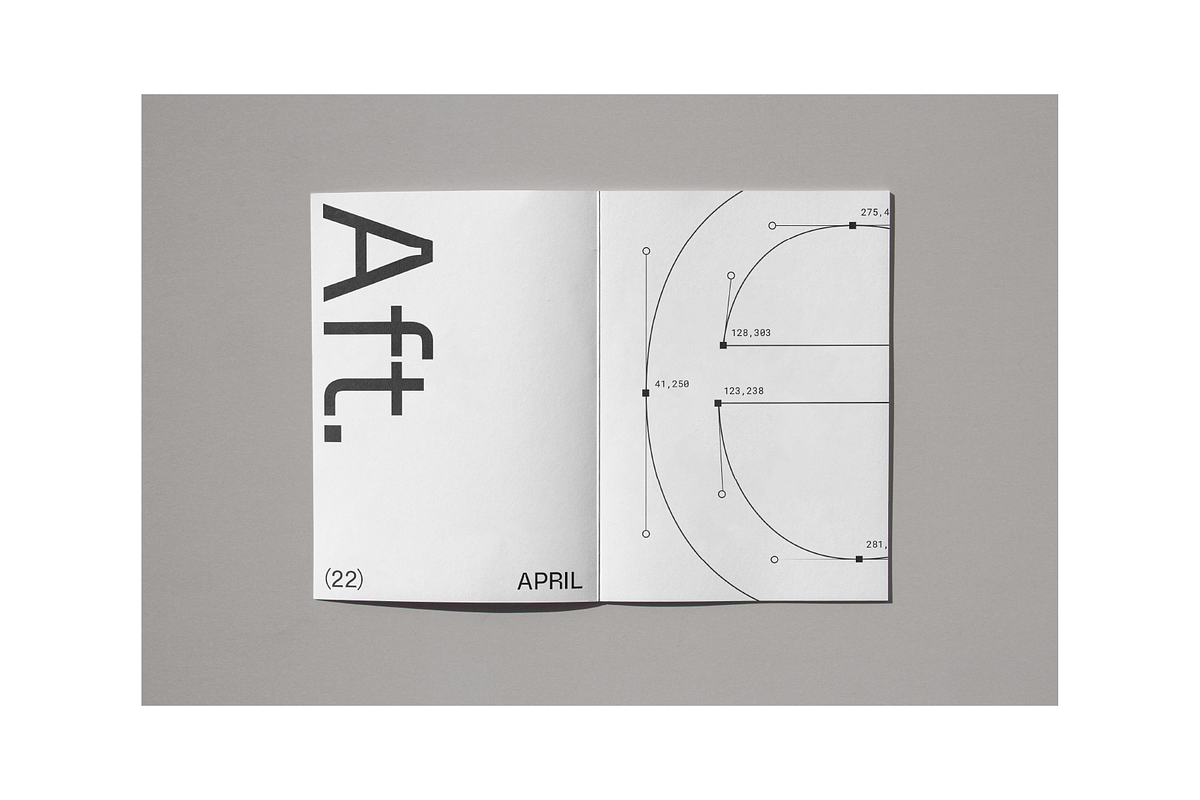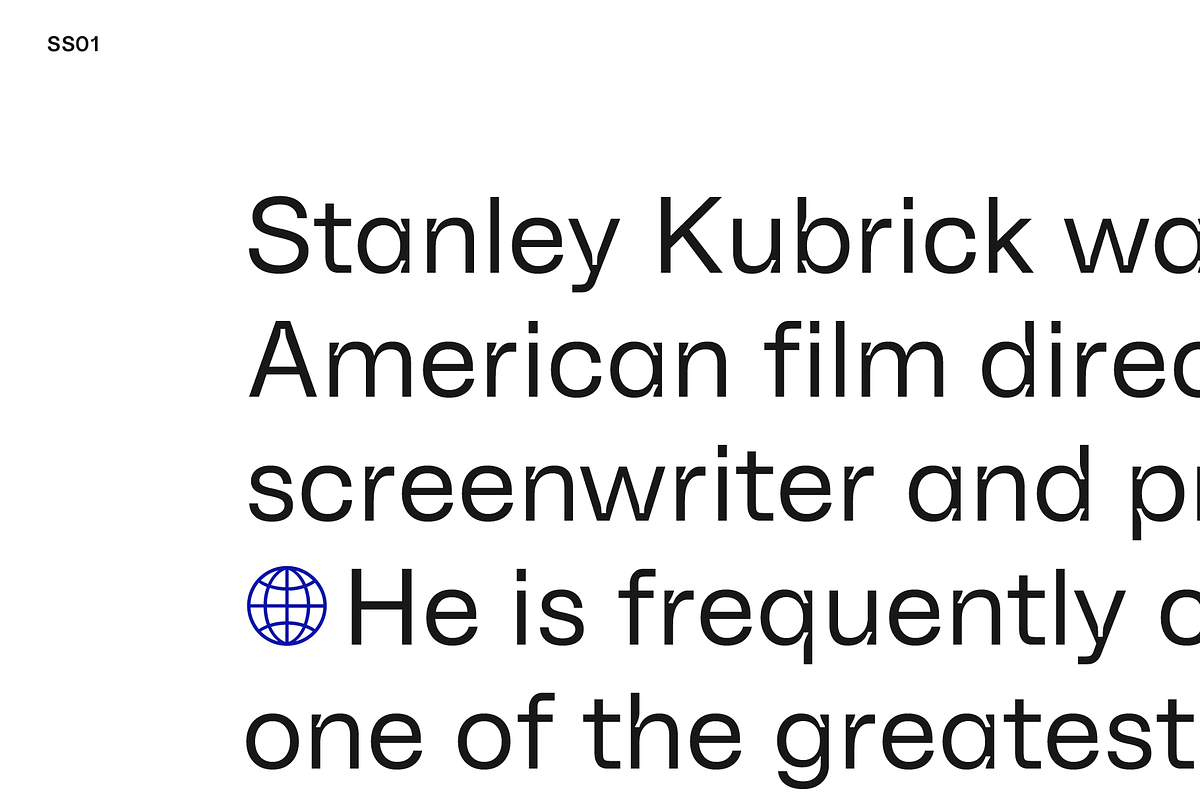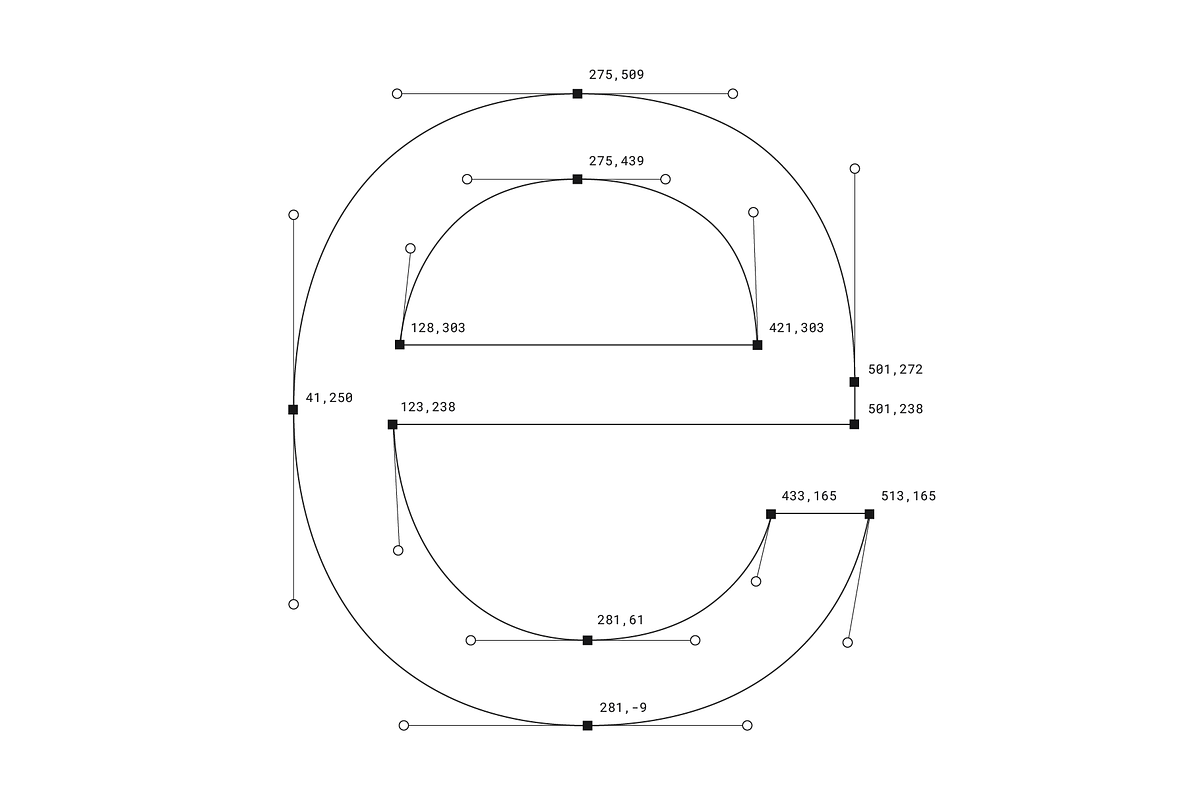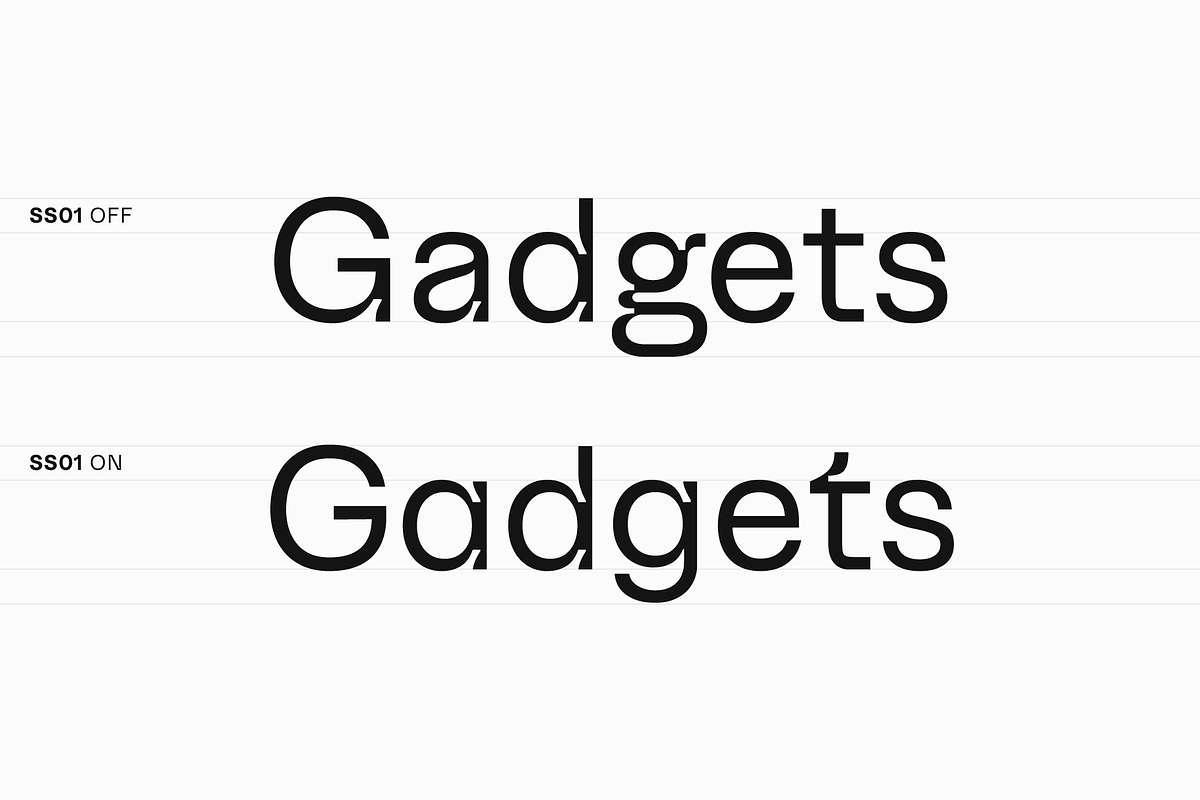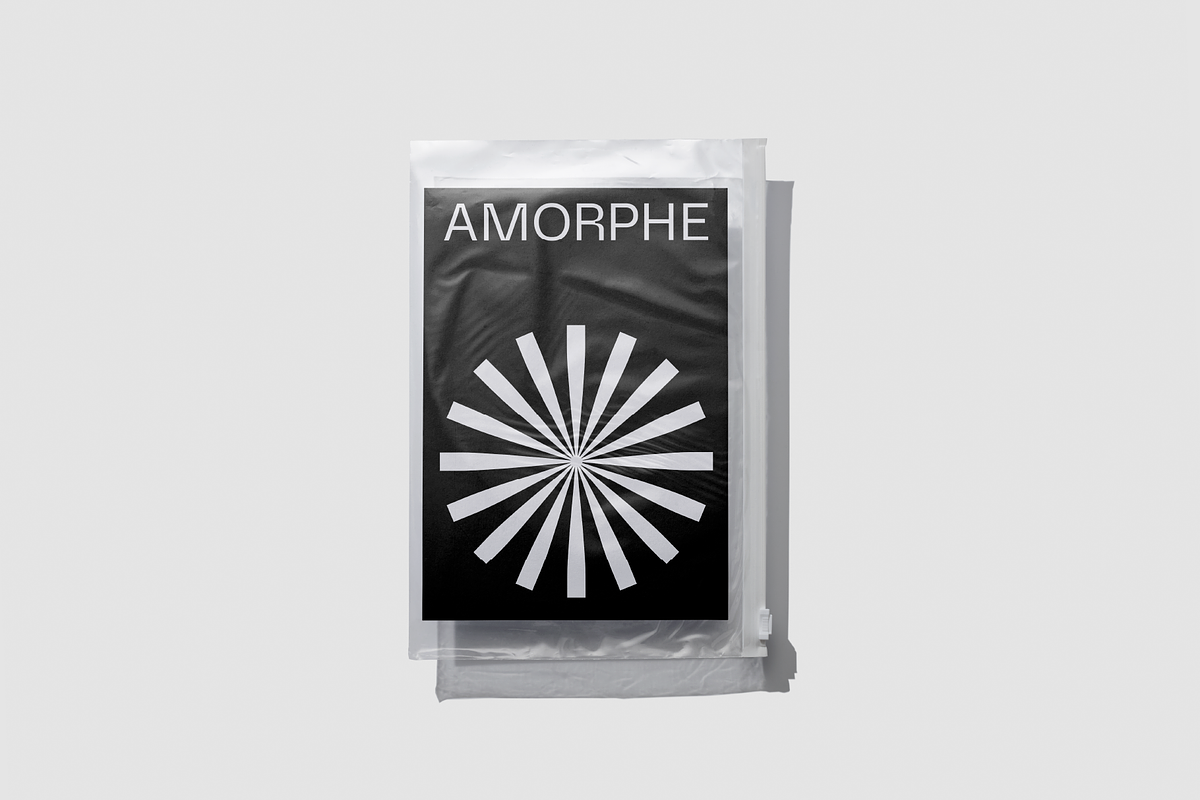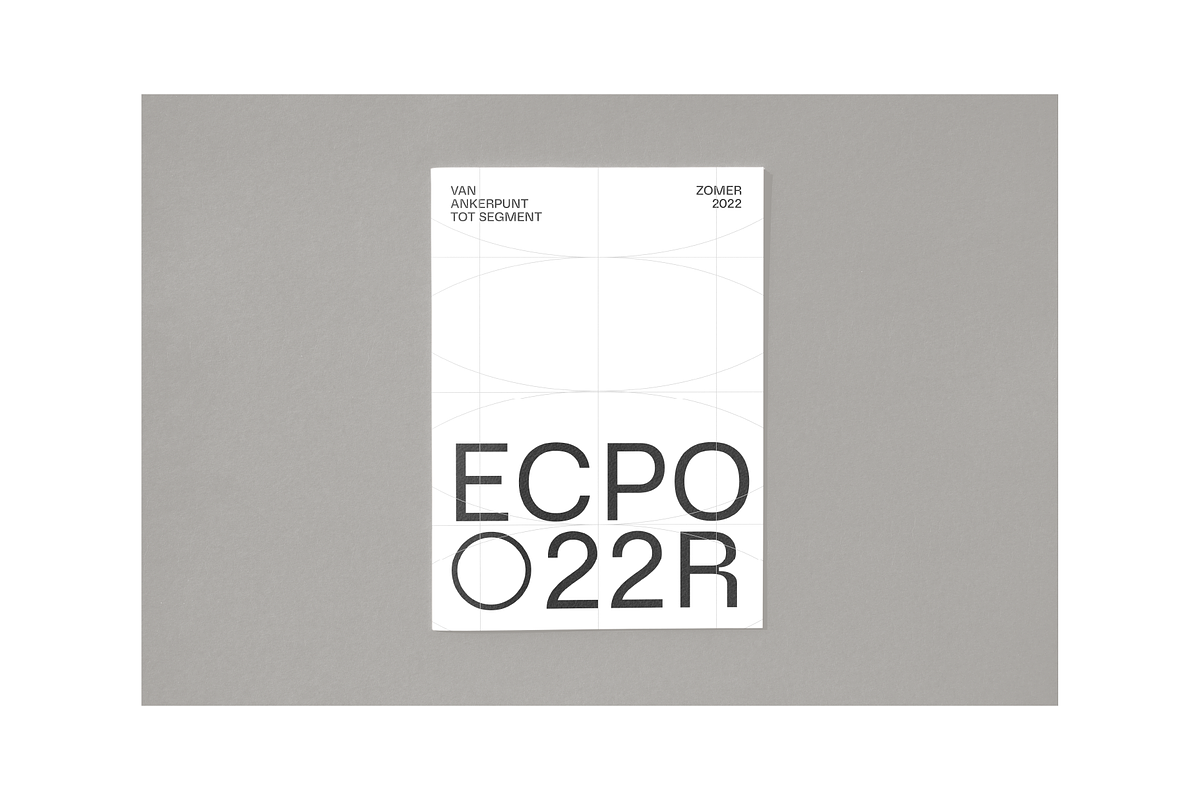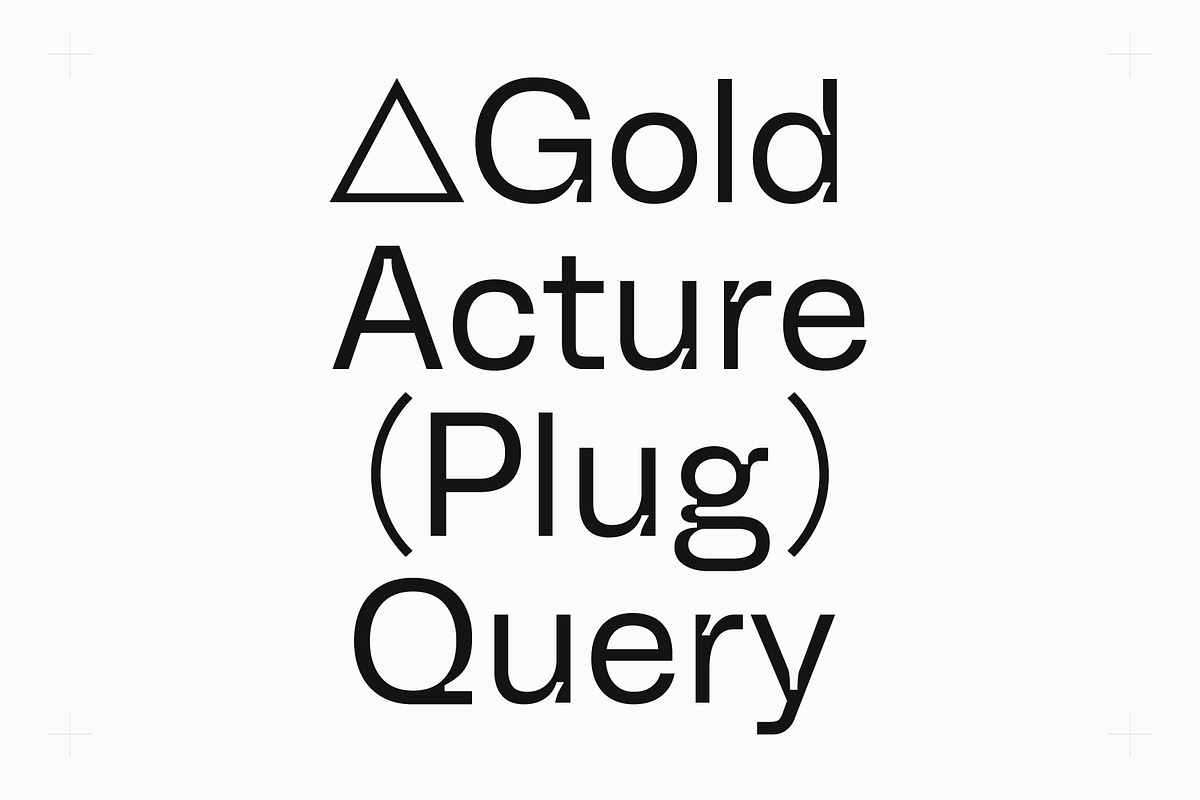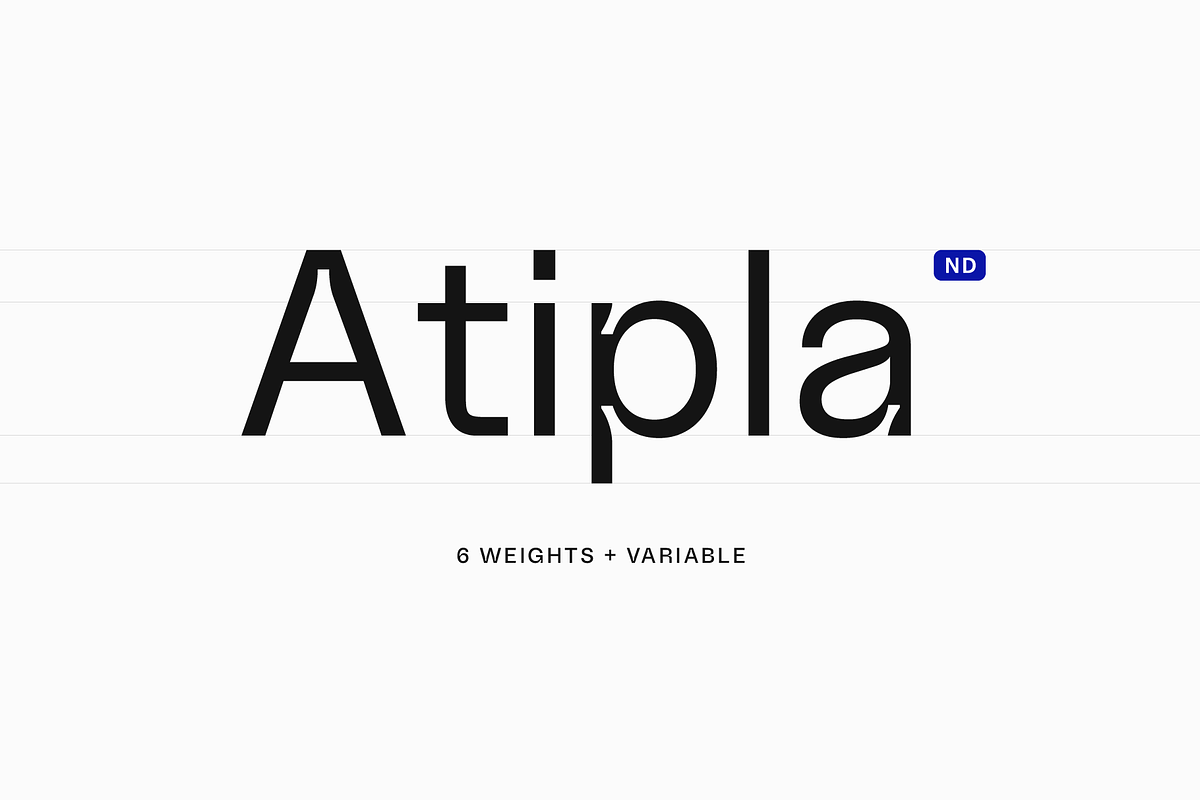
Atipla ND — 6 weights + variable
Atipla ND is a contemporary sans serif typeface. It works best at large sizes, with softened ink traps pair legibility with aesthetic, while its strict horizontal and vertical terminals give it a rigid yet friendly appearance.
Atipla ND contains a stylistic set, case sensitive forms, symbols and arrows, and the font covers all Latin Extended-A languages. The download contains 6 weights in OTF, TTF, WOFF and WOFF2 — plus 1 variable TTF containing all 6 weights.